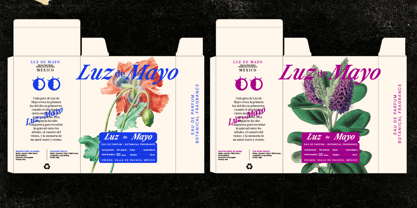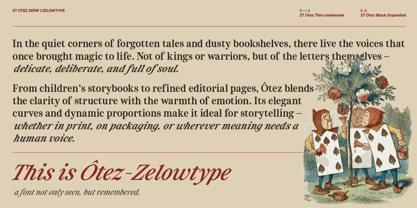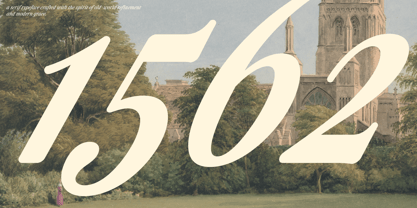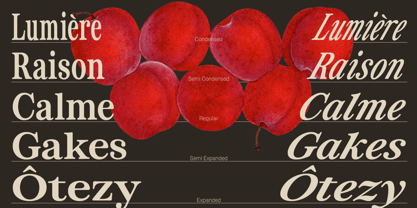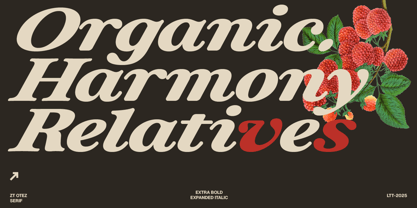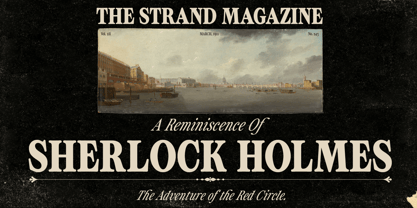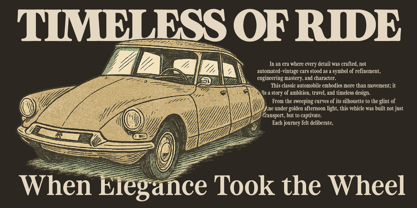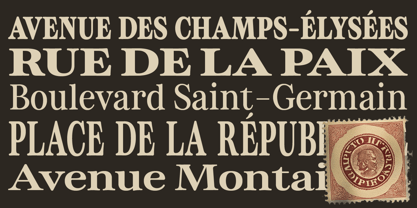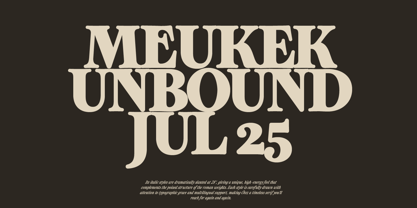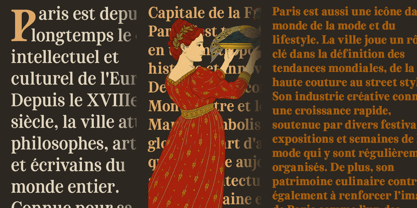
ZT Otez
by Zelow Type
The ZT Otez Font Family was designed by Khairun Nas and published by Zelow Type. ZT Otez contains 90 styles and family package options. More about this family
ZT Otez is a refined serif typeface crafted with elegance, precision, and timeless character. Inspired by classic editorial lettering and 20th-century French book typography, ZT Otez is designed for those who seek both beauty and performance in every letter.
With a stunning 90 styles in total — 45 upright and 45 italic — ZT Otez ranges from Thin Condensed to Black Expanded, making it exceptionally flexible for everything from luxury branding and magazine layouts to packaging and poster design.
What makes ZT Otez unique?
- 90 Styles: 45 Roman + 45 Italic
- Weight range: Thin to Black
- Width range: Condensed to Expanded
- Extreme 28° italic slant
- Support for 156+ languages
- Ideal for branding, headlines, editorial, and high-end packaging
Its italic styles are dramatically slanted at 28°, giving a unique, high-energy feel that complements the poised structure of the roman weights. Each style is carefully drawn with attention to typographic grace and multilingual support, making ZT Otez a timeless serif you’ll reach for again and again.
Designers: Khairun Nas
Foundry: Zelow Type